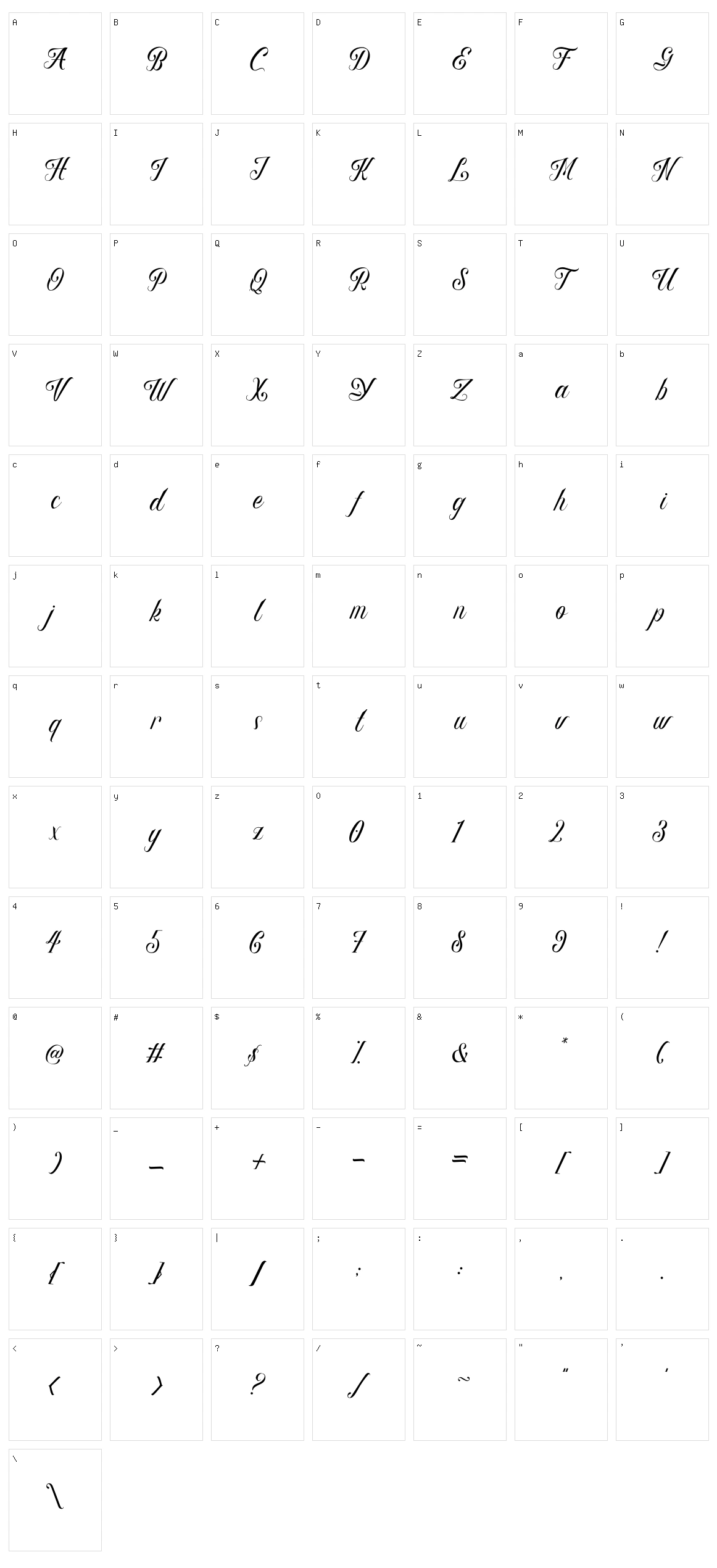
The free font Rhegina Darling is carefully designed by GoldenGraph Design, showcasing a thoughtful balance of creativity and usability and falls under the Script font style. When you download the ZIP file, it contains only 142.88 KB of font files, making it lightweight and quick to download. Please review the license details below to understand permitted usage and distribution rights. If license information is not available, we recommend using this font for personal projects only or contacting the author directly for commercial usage permissions.